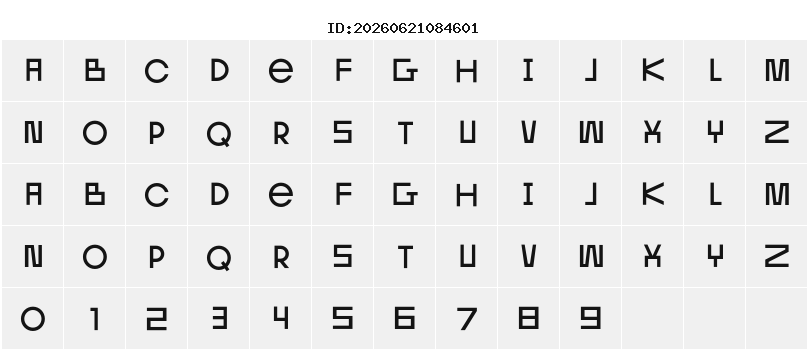
• Font Name: Miratrix Normal
• Designer: Andrey Karter
About Miratrix Normal.otf
Miratrix Normal.otf is a modern, elegant sans-serif font designed for ultimate readability and visual harmony. Perfect for branding, headlines, web design, and print materials.